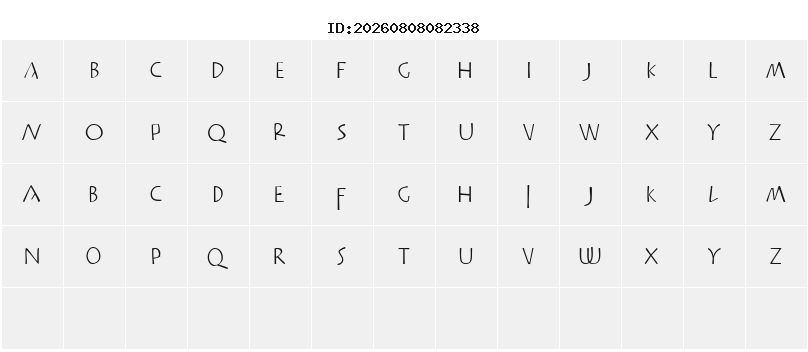
Praitor Preview
• Font Name: Praitor
• Full Font Name: Praitor
About Praitor.ttf
Praitor.ttf is a modern, elegant sans-serif font designed for ultimate readability and visual harmony. Perfect for branding, headlines, web design, and print materials.